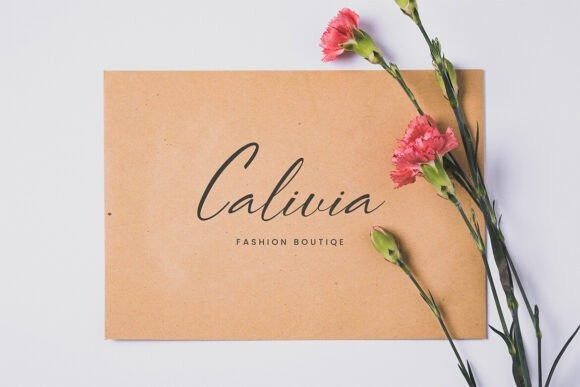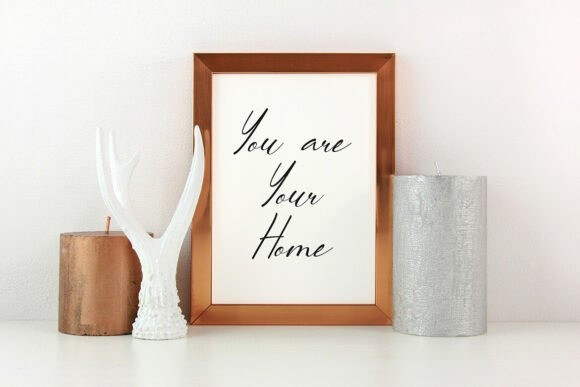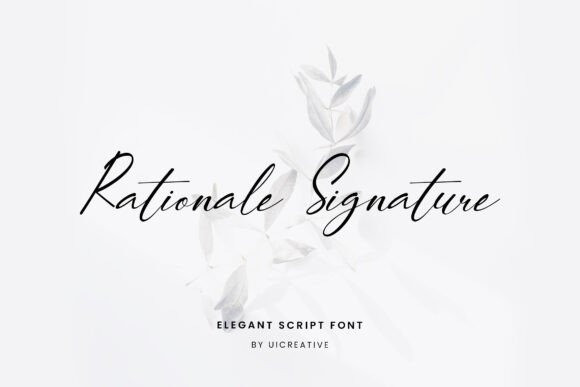
Rationale Signature Font
Rationale Signature Elegant Script Font. This font feels beautiful classy, elegant, and stylish. It is ideally suited for a wide variety of projects, such as signature, stationery, logo, wedding, typography quotes, magazine or book covers, website headers, branding, and more. Also, fashion-related branding or editorial design displays both masculine and feminine qualities.